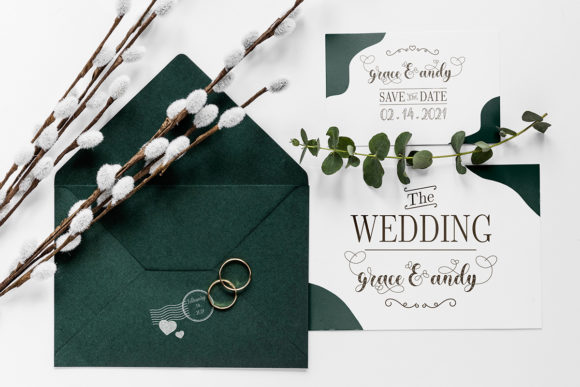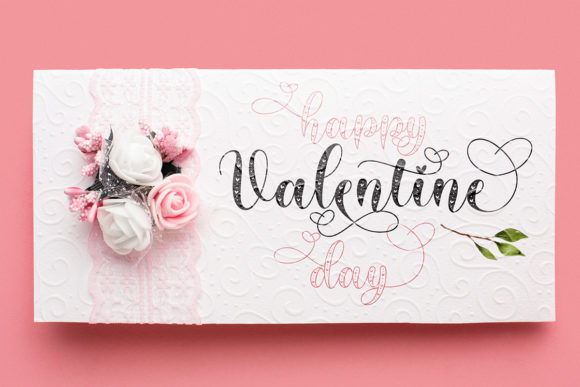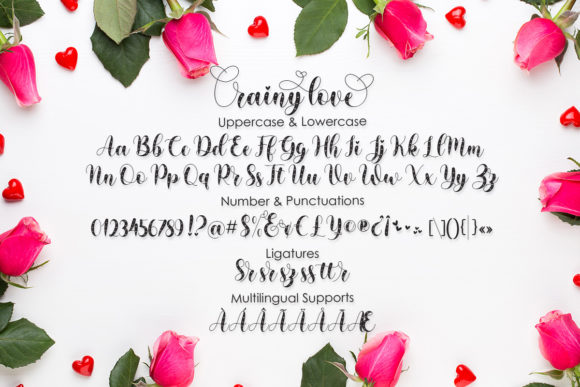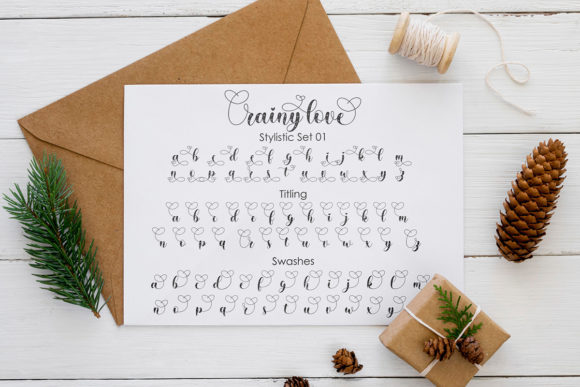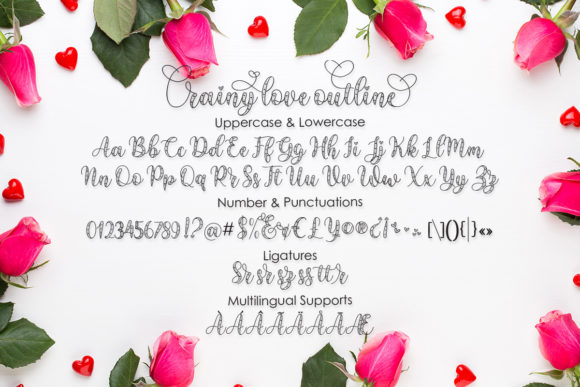
Introduction to Rainy Love Font
There’s something magical about creating a design project on a rainy day, the sound of raindrops outside and the warm glow of your screen inside, it’s the perfect setting for inspiration to strike. For designers, finding the right font can make all the difference in bringing a creative project to life. And, that’s exactly where the Rainy Love Font comes in – a beautiful handwritten font with a romantic theme that’s sure to captivate your audience.
As a valuable design resource, Rainy Love Font offers a high-quality, versatile style that’s perfect for a wide range of creative projects, from gorgeous wedding invitations to beautiful stationery art, eye-catching social media posts, and more. With its PUA encoded feature, accessing all the glyphs and swashes is a breeze, making it an ideal choice for designers who want to add a touch of elegance to their work.
Key Features of Rainy Love Font
- High-quality design resource ideal for creative projects, such as graphic design, digital art, and web design.
- Designed with a unique, cursive script that evokes a sense of romance and love, perfect for Valentine’s Day, weddings, and other romantic occasions.
Honest Review: Rainy Love Font
I recently stumbled upon the Rainy Love Font while searching for a design resource for a creative project. I must say, I was impressed by its unique and elegant style, perfect for any design that requires a touch of whimsy.
- The high quality of the font ensures that it will scale well for any design project.
- The font’s creative and playful vibe makes it perfect for projects that require a touch of personality.
- The font may not be suitable for formal or corporate designs, as it has a more whimsical feel.
- The font’s unique style may not be to everyone’s taste, so it’s essential to consider your audience before using it.
How to Use Rainy Love Font
For optimal results, use the Rainy Love Font in conjunction with a high-contrast background to make the text stand out. Experiment with different font sizes and styles to achieve the desired effect.
The Rainy Love Font is ideal for romantic and whimsical designs, making it perfect for Valentine’s Day cards, wedding invitations, and other creative projects. You can also use it for personal blogs, social media graphics, and advertising materials.